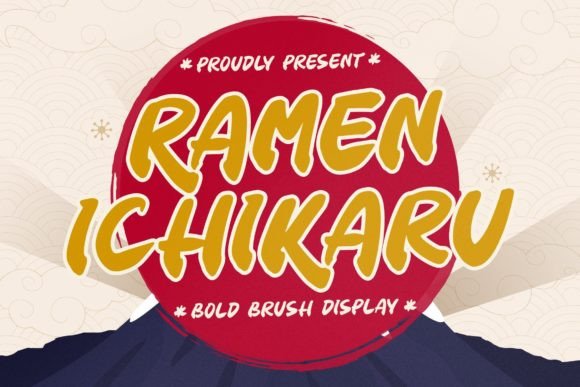
Prepare to be spellbound by the visual delight of Ramen Ichikaru, a bold and expressive script font that will transform your designs into captivating expressions of art. This font is not merely a collection of characters; it's a gateway to a world of creativity, inviting you to unleash your imagination and leave an indelible mark on your audience.
Step into the realm of Ramen Ichikaru, where every letter dances with playful energy and exudes a vibrant personality. Its carefully crafted strokes create a dynamic rhythm that flows effortlessly across your designs, capturing attention and igniting emotions. Whether you're designing logos, branding projects, homeware designs, or product packaging, Ramen Ichikaru adds a touch of charm and uniqueness that sets your work apart.
With its versatility and endless possibilities, Ramen Ichikaru becomes an indispensable tool in the hands of creative professionals. It adapts seamlessly to a myriad of projects, from mugs and posters to shopping bags and T-shirts. Its bold presence commands attention on book covers, name cards, and invitation cards, while its playful spirit shines through in greeting cards, labels, and photography. The applications of Ramen Ichikaru are as limitless as your imagination, promising to elevate your designs to new heights.
Let Ramen Ichikaru be your secret weapon for creating designs that captivate and inspire. Its bold and energetic style adds an instant touch of sophistication to any project, while its playful nature lends a sense of whimsy and delight. Whether you're a seasoned designer or just starting your creative journey, Ramen Ichikaru is the perfect companion to help you bring your visions to life.
So, embrace the allure of Ramen Ichikaru and embark on a creative odyssey like never before. Let its bold strokes guide you, its playful spirit inspire you, and its versatility empower you to create designs that leave a lasting impression. Dare to be different, dare to be bold, and let Ramen Ichikaru be your artistic compass on this extraordinary journey.